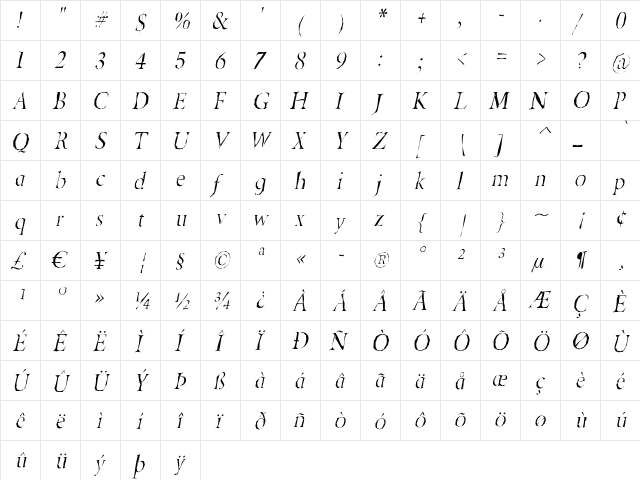
Berylium Gaunt Italic
Design Context for Berylium Gaunt Typeface
Berylium Gaunt is a composed and adaptable typeface that performs quietly and consistently across a wide range of design contexts. The slanted form adds forward momentum and visual energy.
Pro Tip: Try Berylium Gaunt for annotation and caption copy alongside an upright companion — the contrast in angle creates a dynamic but ordered typographic system.